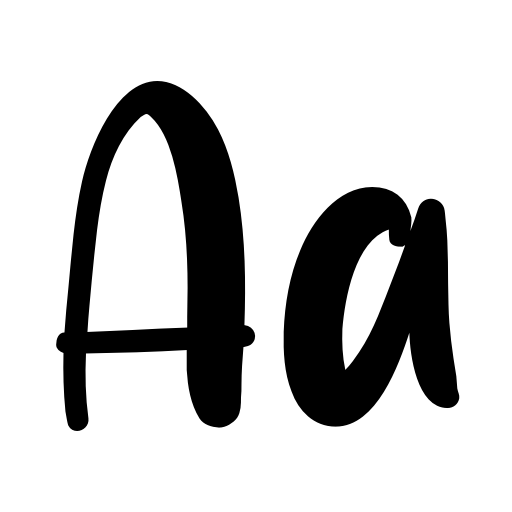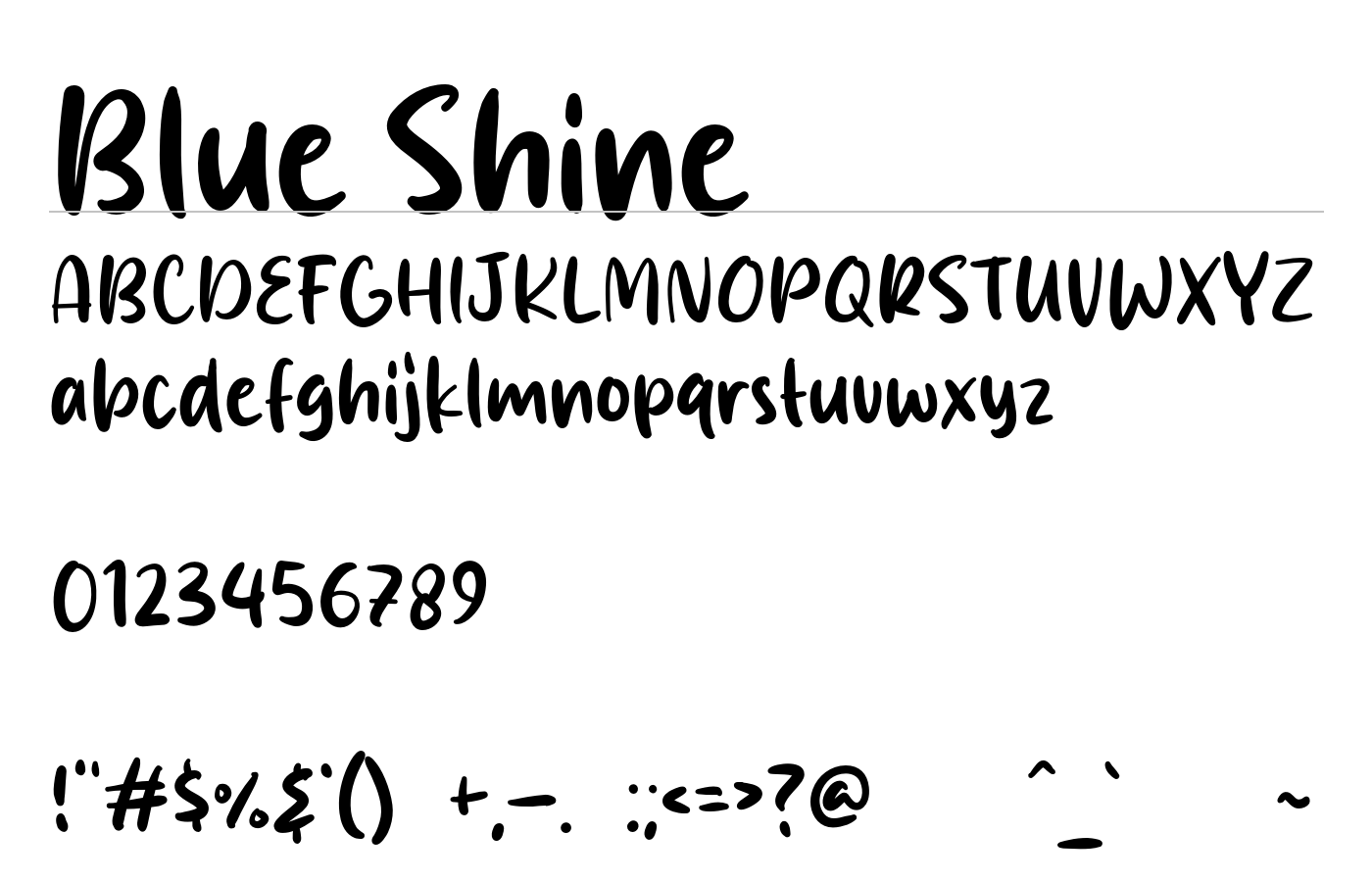
Blue Shine is a playful and casual handwritten font with a lively, organic feel. Its rounded strokes and natural flow create an inviting, friendly personality that works well for informal branding, social media graphics, or creative projects seeking a personal touch. This font’s clear, bold characters make it ideal for headlines and logos where a warm, approachable vibe is desired.
Blue Shine Font
About Blue Shine Font
| Font family | Blue Shine Font |